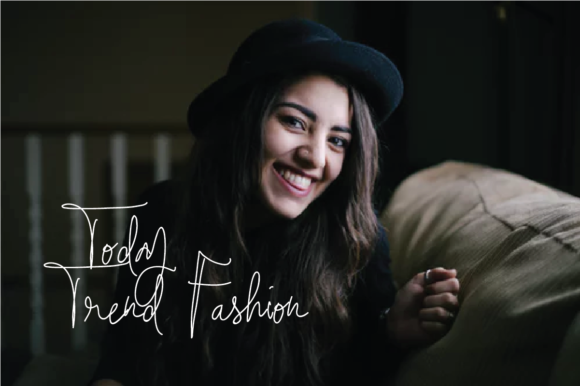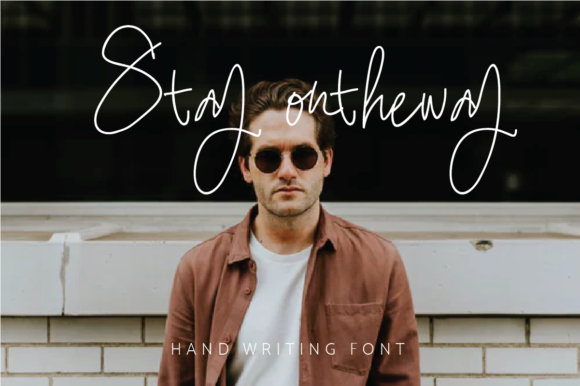
HomeScript FontsStay Ontheway Font Script Fonts Stay Ontheway Font FacebookXPinterestWhatsApp Stay Ontheway Font Poster 2 Stay Ontheway Font Poster 3 About Stay Ontheway Font Stay Ontheway is a lovely and light script font with an elegant feel. Get inspired by its authentic charm! DOWNLOAD NOW People also explored Gietha Font Simple Moment Font Mr Right Font Austin Pen Font Beautiful Love Font Santeria The Secret Love Font England Font Batrade Font 330 0 TagsStay Ontheway Font Previous articleButton Shield FontNext articleBought Font LEAVE A REPLY Cancel reply Comment: Please enter your comment! Name:* Please enter your name here Email:* You have entered an incorrect email address! Please enter your email address here Website: Save my name, email, and website in this browser for the next time I comment. Personal Use Free Groomer Personal Use Free Read more about this font Sunflower Personal Use Free Read more about this font Dolce Vita Personal Use Free Read more about this font Shrag Script Personal Use Free Read more about this font BLOG Elegant Wedding Invitation Fonts – Handwritten & Script Fonts Elegant Wedding Invitation Fonts Your wedding day is one of the most important moments of your life, and every detail matters—including your invitation design. Our... How to Cut Any Font on Cricut: Convert a Font to SVG (Free) Fonts That Capture the Spirit of New York City Free Fonts Risk: Why Free Fonts Can Be Dangerous for Designers